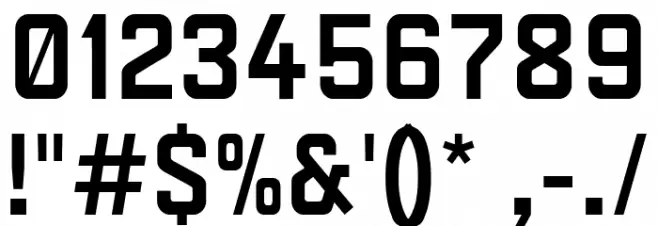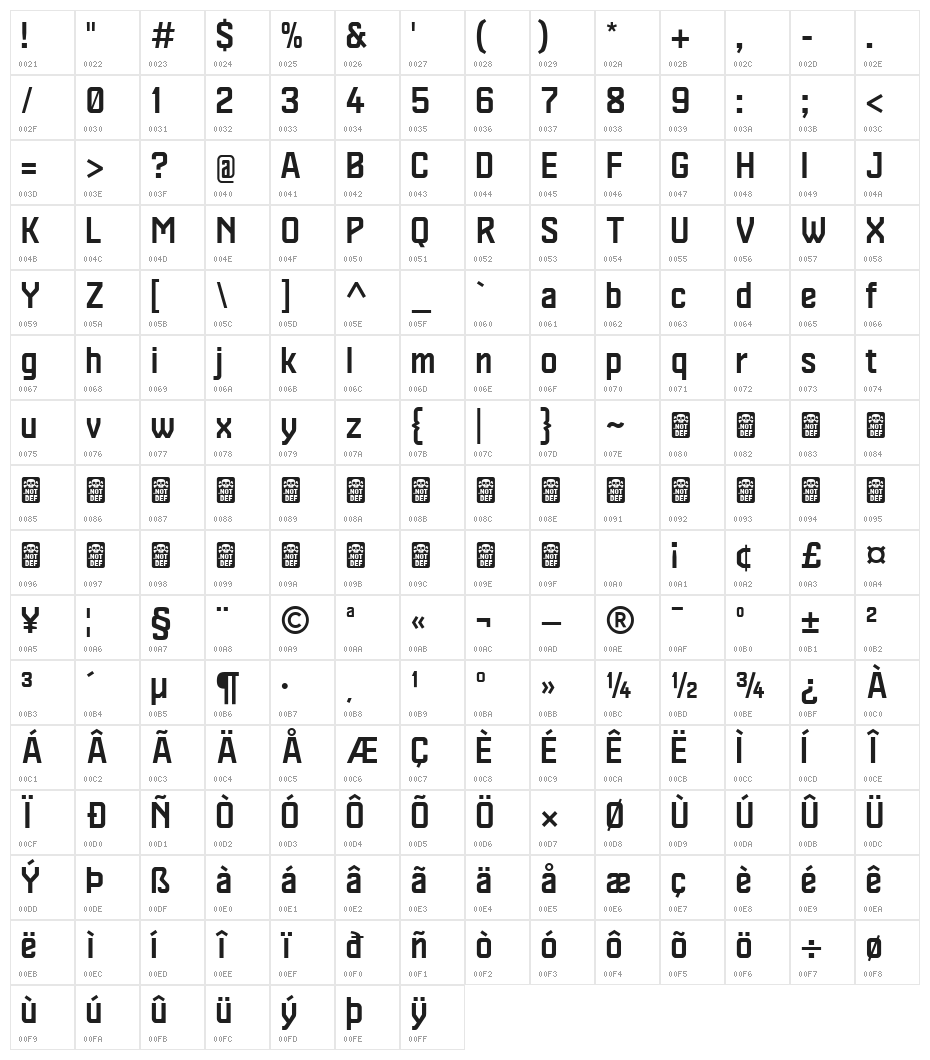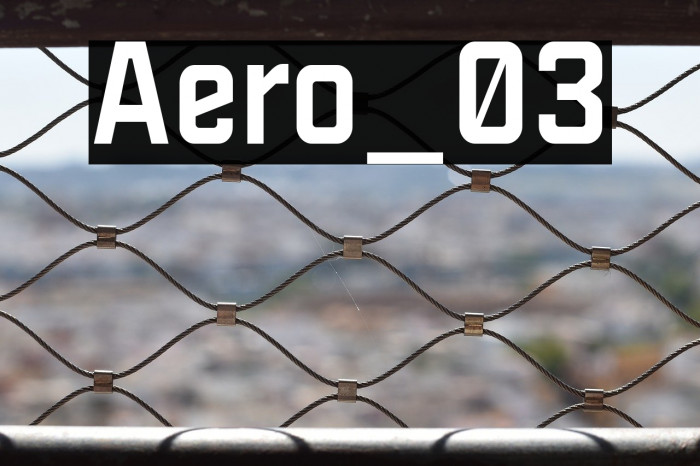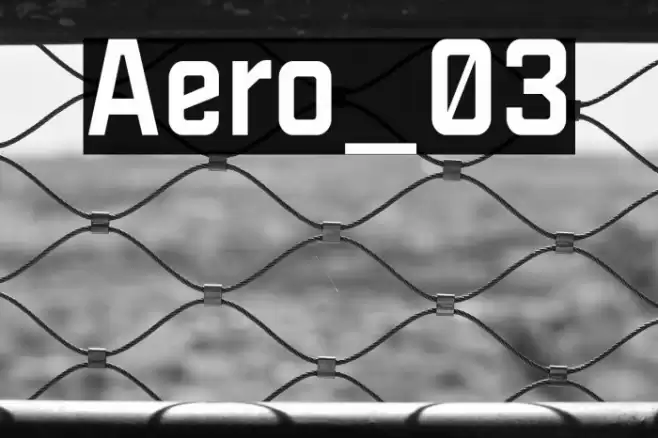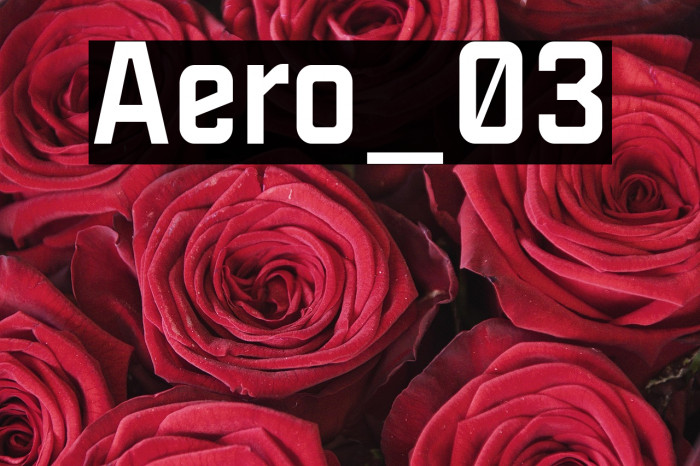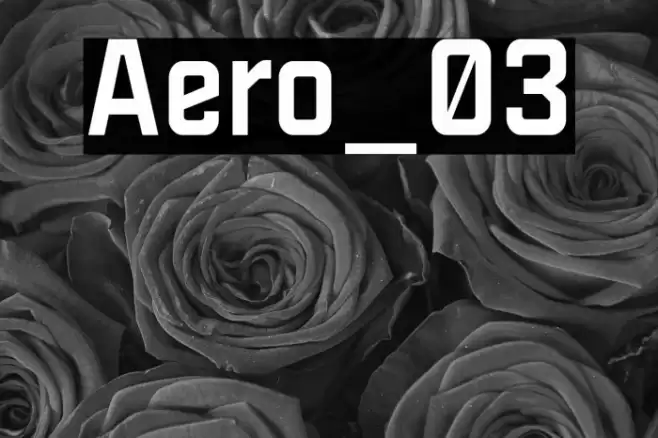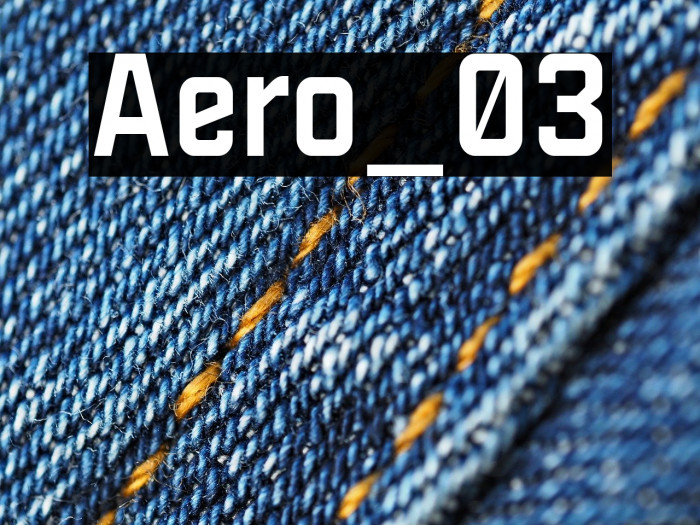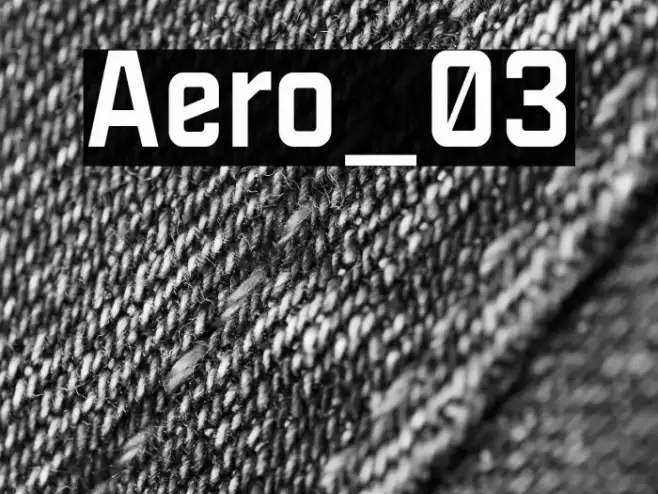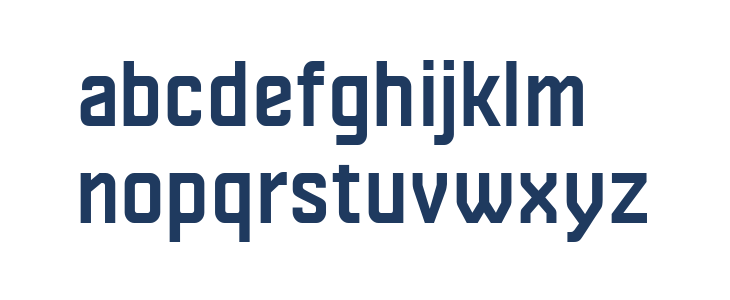
Aero_03 Font
Aero_03 Description
This font features a bold and modern design with a geometric structure. The characters are uniform in width, giving it a monospaced appearance, although it is not strictly monospaced. The uppercase letters are tall and commanding, while the lowercase letters maintain a consistent height, contributing to a clean and organized look. The numerals are clear and legible, making them suitable for various applications. The special characters are distinct and match the overall style, ensuring consistency across all glyphs. The font's strong lines and lack of serifs give it a contemporary feel, ideal for digital and print media.
Use CaseHeadlines, Logos, Digital Interfaces
Proposed ProjectsIdeal for technology branding, digital interfaces, posters, and modern editorial design.